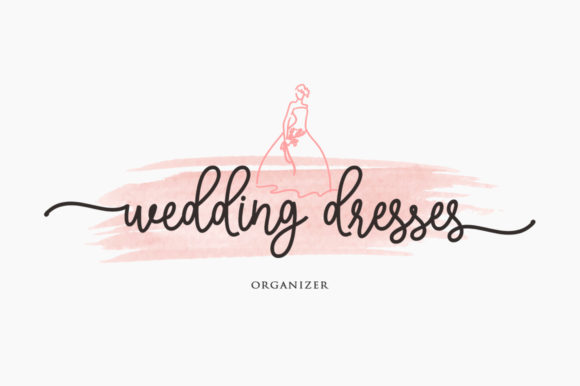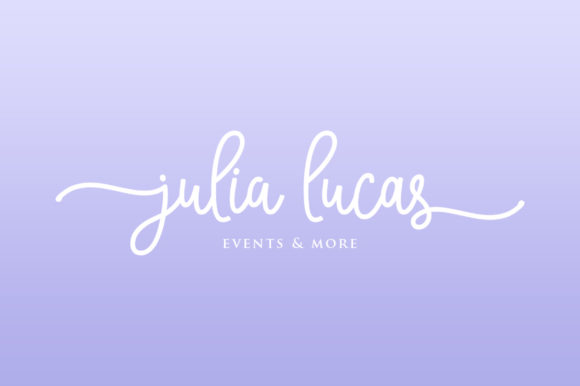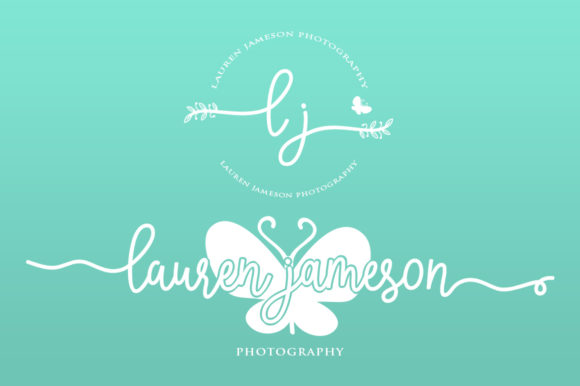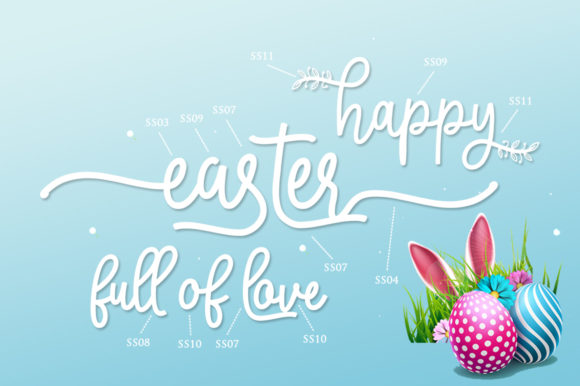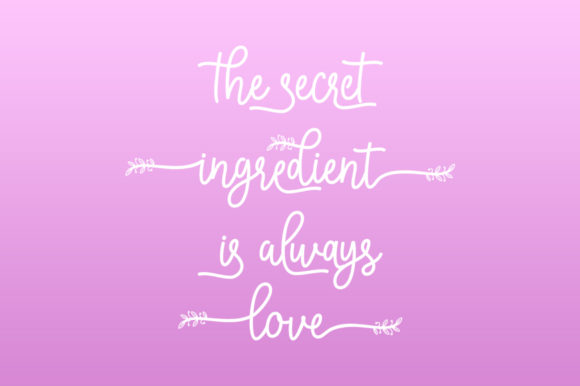
Biscuiterie Font: Add a Touch of Romance and Luxury to Your Designs
Are you looking for a font that can add a touch of elegance and sophistication to your design projects? Look no further than the Biscuiterie Font! This beautiful calligraphy typeface is perfect for designers and crafters who want to create stunning and luxurious designs that will leave a lasting impression.
What is Biscuiterie Font?
Biscuiterie Font is a romantic and sweet calligraphy typeface that features characters that dance along the baseline. The font is designed to add a luxury spark to any design project, making it perfect for a variety of applications, from wedding invitations and stationery to branding and packaging.
Key Features of Biscuiterie Font
- PUA Encoded: The Biscuiterie Font is PUA encoded, which means that you can access all of the glyphs and swashes with ease. This makes it simple to use the font and customize it to suit your needs.
- Beautiful Calligraphy: The font features beautiful calligraphy characters that are sure to add a touch of elegance and sophistication to your designs.
- Luxury Spark: The Biscuiterie Font is designed to add a luxury spark to any design project, making it perfect for designers and crafters who want to create high-end designs.
Why Choose Biscuiterie Font?
There are many reasons why you should choose the Biscuiterie Font for your design projects. Here are just a few:
- Unique and Elegant: The Biscuiterie Font is a unique and elegant font that will set your designs apart from the rest.
- Versatile: The font is versatile and can be used for a variety of applications, from wedding invitations and stationery to branding and packaging.
- Easy to Use: The Biscuiterie Font is easy to use and customize, thanks to its PUA encoding.
How to Use Biscuiterie Font
Using the Biscuiterie Font is simple and easy. Here are a few tips to get you started:
- Choose the Right Size: Choose the right size for your font, depending on the application. For example, you may want to use a larger size for a wedding invitation or a smaller size for a social media post.
- Experiment with Swashes: The Biscuiterie Font features a range of swashes that you can use to add a touch of elegance and sophistication to your designs. Experiment with different swashes to find the one that works best for your project.
- Pair with Other Fonts: The Biscuiterie Font can be paired with other fonts to create a unique and interesting design. Experiment with different font combinations to find the one that works best for your project.
Design Ideas Using Biscuiterie Font
The Biscuiterie Font is a versatile font that can be used for a variety of design projects. Here are a few ideas to get you started:
- Wedding Invitations: Use the Biscuiterie Font to create beautiful and elegant wedding invitations that will set the tone for the big day.
- Stationery: Use the font to create custom stationery, including notecards, letterhead, and more.
- Branding and Packaging: Use the Biscuiterie Font to create luxurious branding and packaging for your business or product.
- Social Media Graphics: Use the font to create eye-catching social media graphics that will help you stand out from the crowd.
The Biscuiterie Font is a beautiful and elegant calligraphy typeface that is perfect for designers and crafters who want to add a touch of luxury to their designs. With its PUA encoding and range of swashes, the font is easy to use and customize. Whether you’re creating wedding invitations, stationery, branding and packaging, or social media graphics, the Biscuiterie Font is sure to add a touch of elegance and sophistication to your designs.